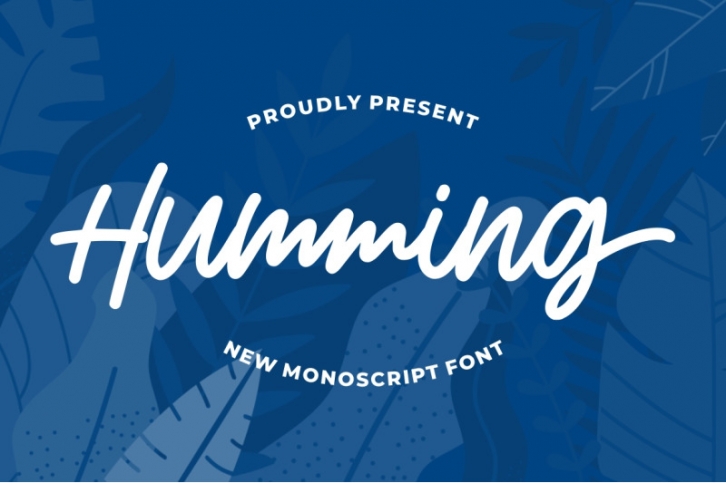
Humming - Monoscript Font
Humming is made a naturally modern script with a fresh modern script; delivering a stylish script which is guaranteed to add an eye-catching appeal to your logo designs, brand imagery, quotes, product packaging, merchandise & social media posts
- Versatile for poster, logotype, labels, book cover